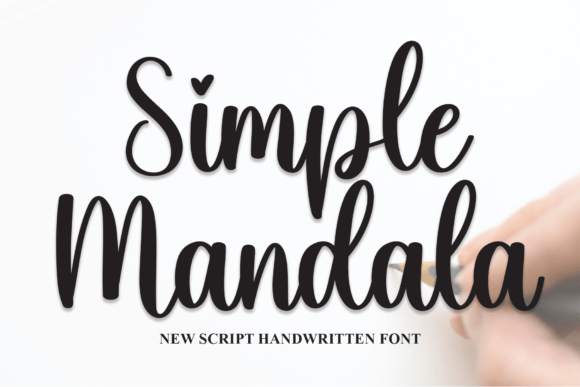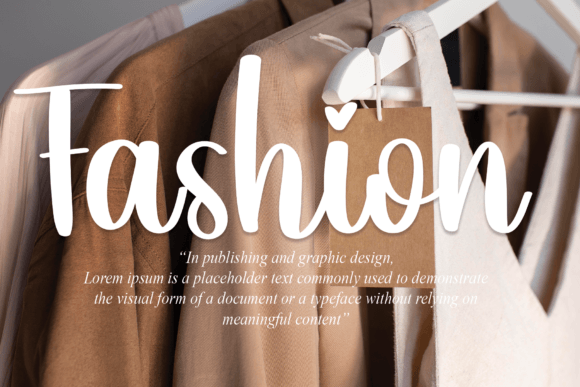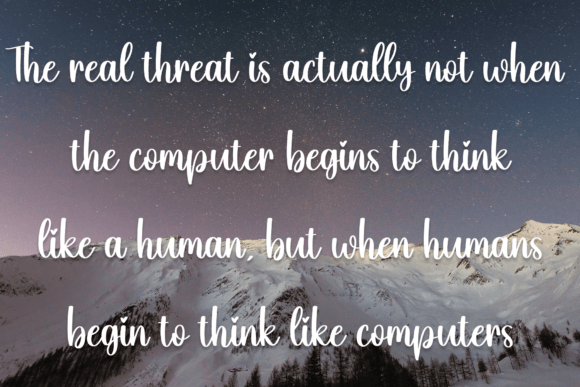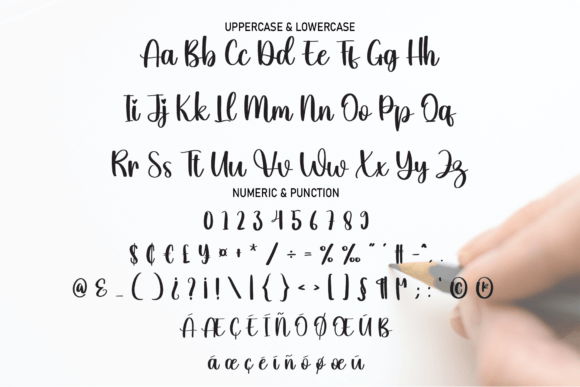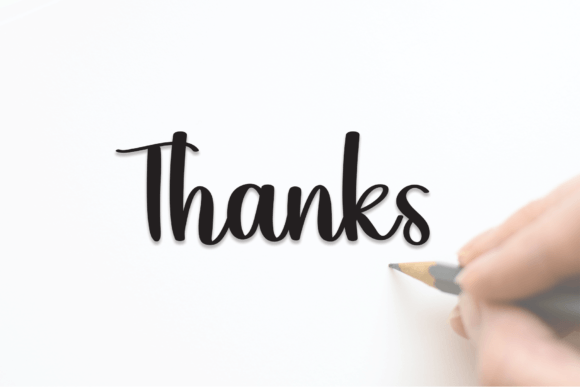
Simple Mandala Font
About Simple Mandala Font
The latest style of this font introduces letters that are impeccably suited for an array of creative applications. From impactful wall displays to enchanting wedding invitations, the versatility of these letters shines through. Their adaptability extends seamlessly to social media post logos, breathing life into your online presence, and enhancing the visual identity of your brand.
In the realm of advertising, these letters make a bold statement, capturing attention and adding a touch of personalized charm to campaigns. Picture them gracing product packaging, where each character contributes to a design that stands out on the shelves, creating a lasting impression on potential customers. Product designs and labels acquire a distinctive, handwritten taste that resonates with authenticity.
For photographers, this font serves as the perfect watermark, subtly branding images with a touch of elegance and uniqueness. Invitations and stationery take on a warm and personal feel, as these letters infuse a handwritten charm into every word.
In essence, these latest style letters are a versatile tool for any project that craves a handwritten taste. They bring a blend of contemporary flair and authentic charm, making them an ideal choice for a wide range of creative endeavors. Whether you’re working on branding, packaging, or personal projects like invitations and stationery, these letters elevate your work, adding that special touch that sets it apart.